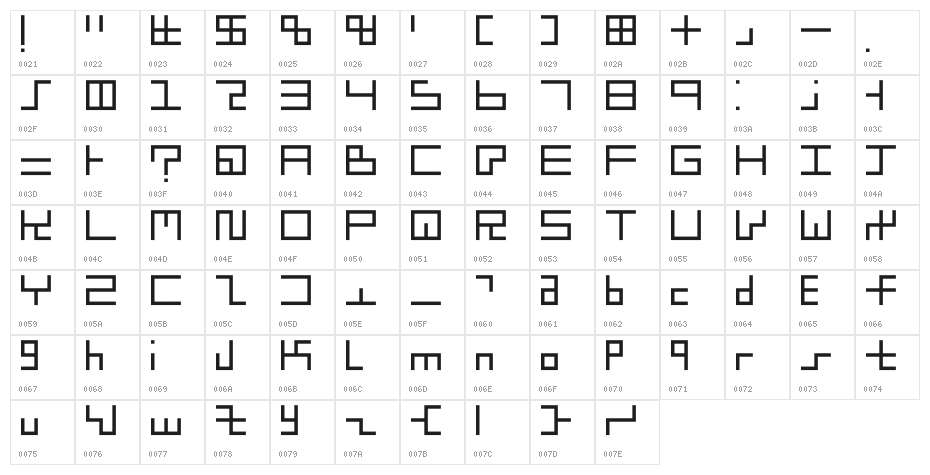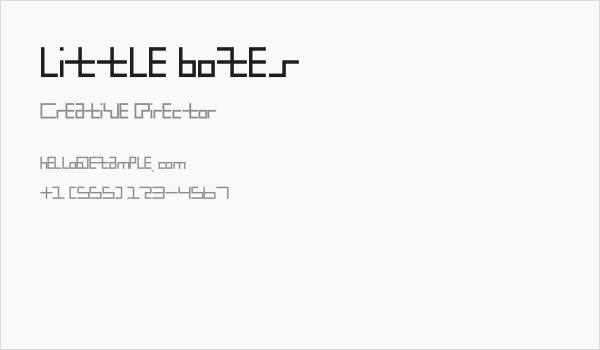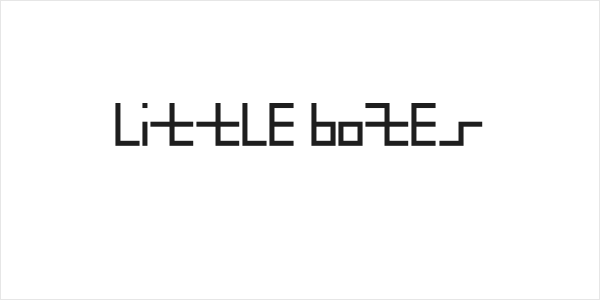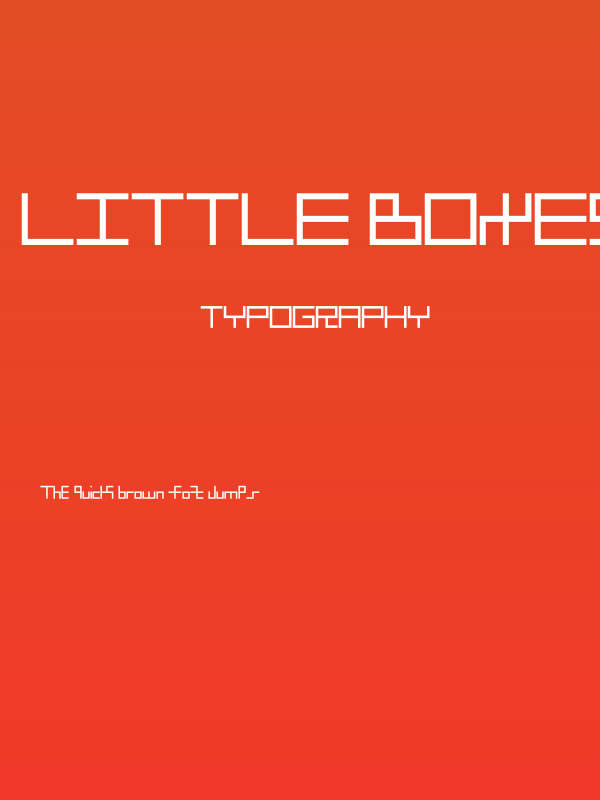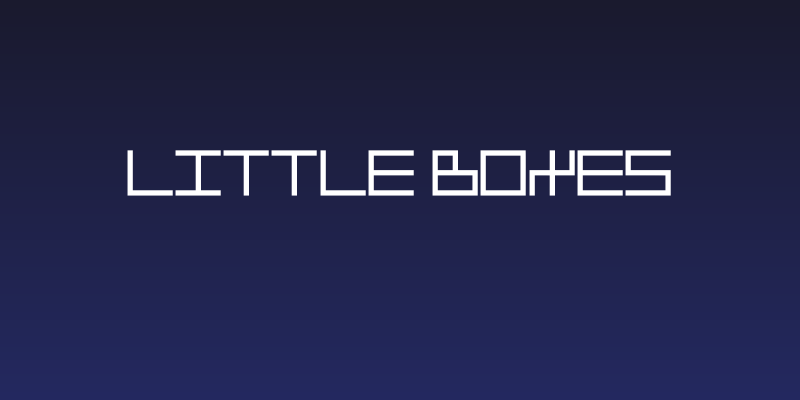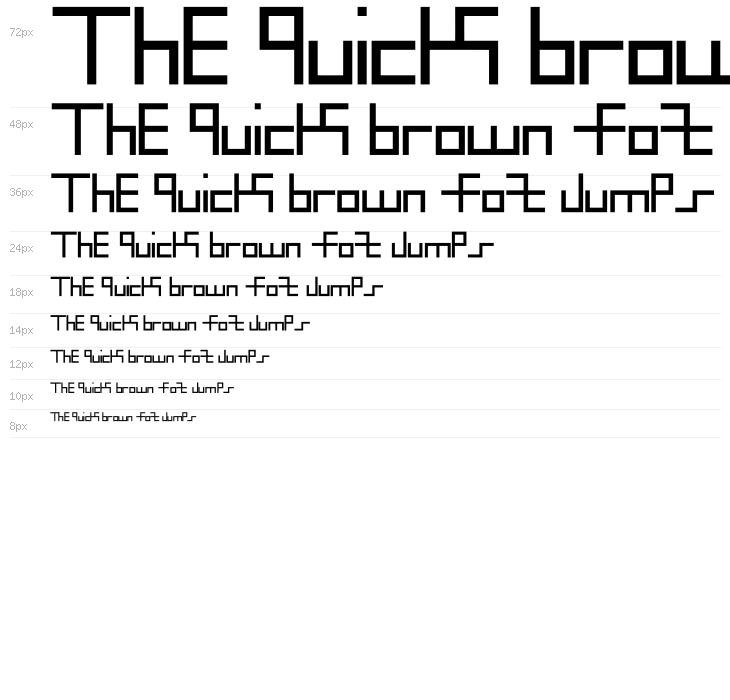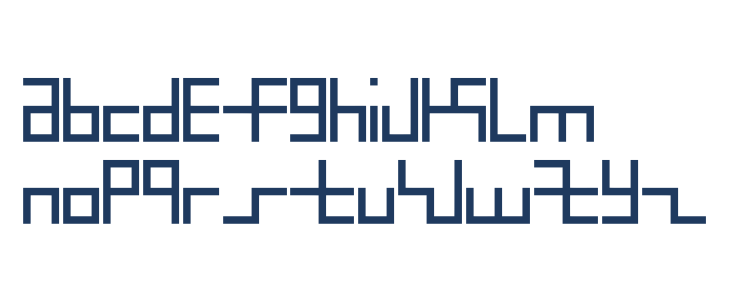
little boxes Font
little boxes Description
This font features a geometric, boxy design with a modern and digital aesthetic. Each character is constructed with straight lines and right angles, giving it a pixelated, grid-like appearance. The uppercase and lowercase letters maintain a consistent height, contributing to a uniform look. The numerals and special characters follow the same structural pattern, ensuring cohesion across all glyphs. The font's minimalistic style is reminiscent of early digital displays or retro video games, making it ideal for projects that require a futuristic or tech-inspired feel.